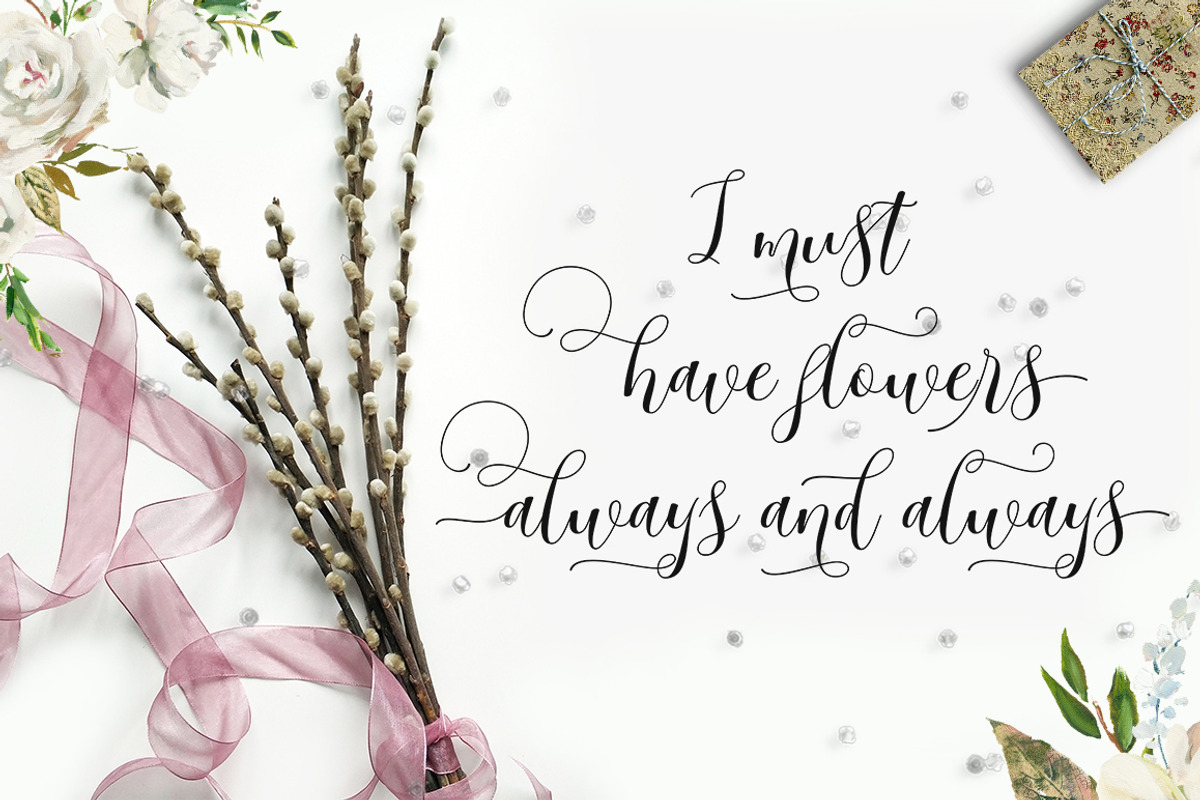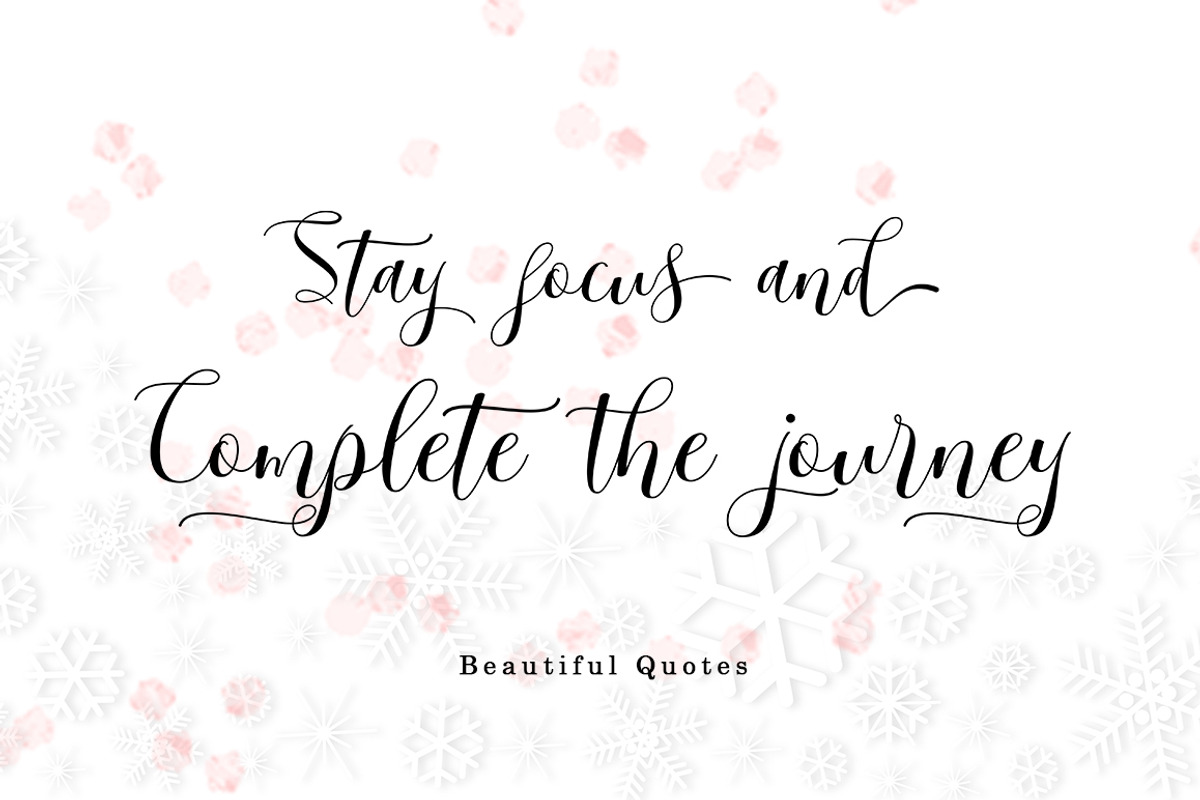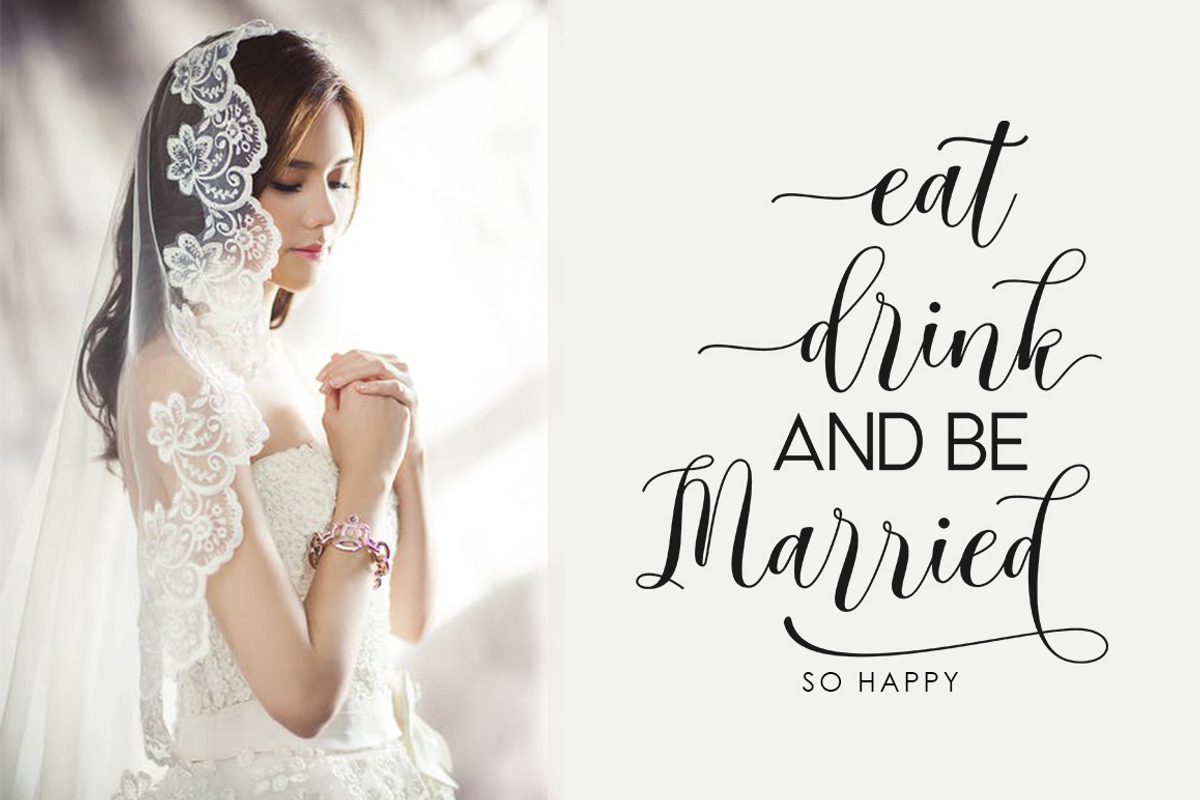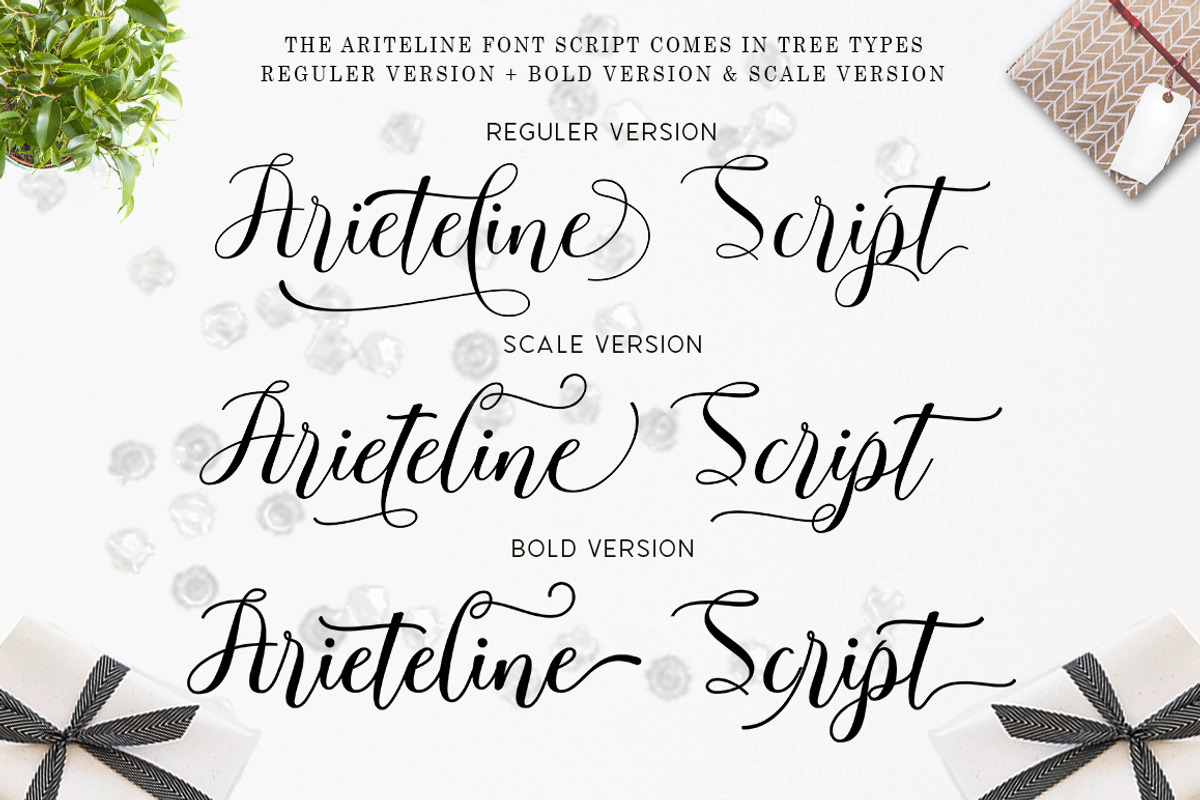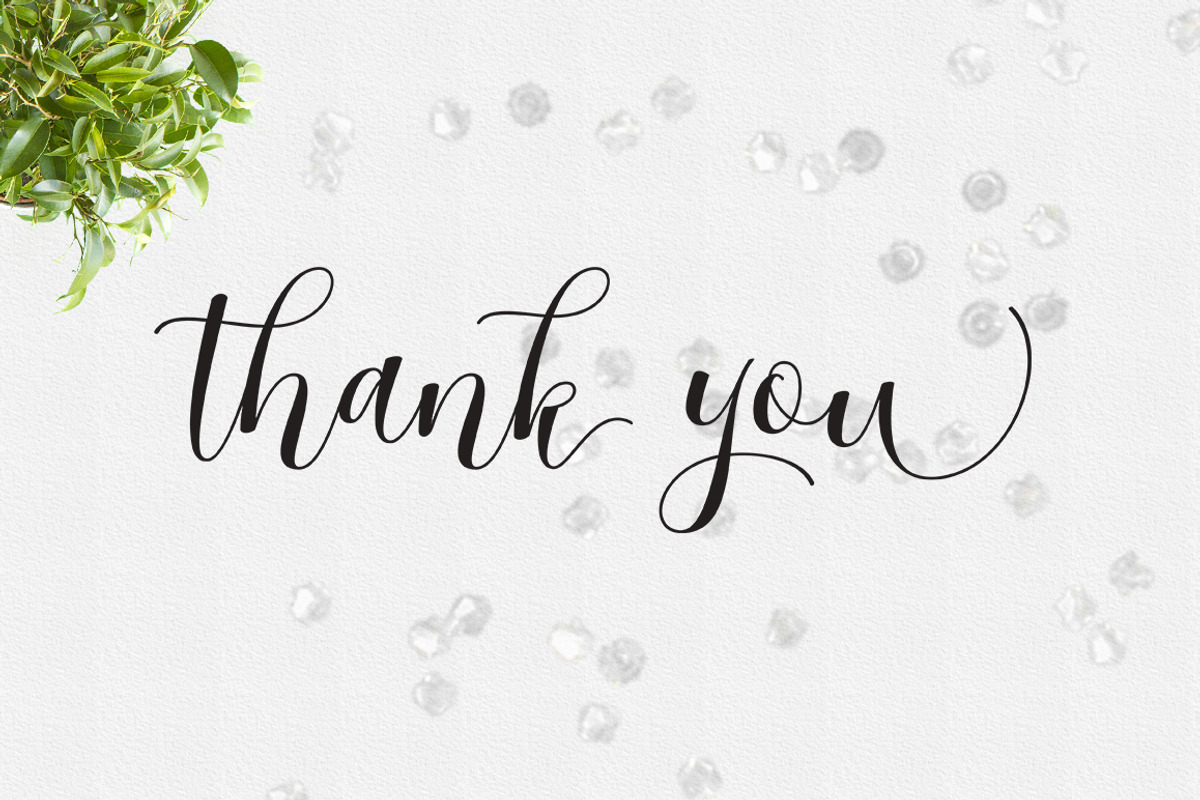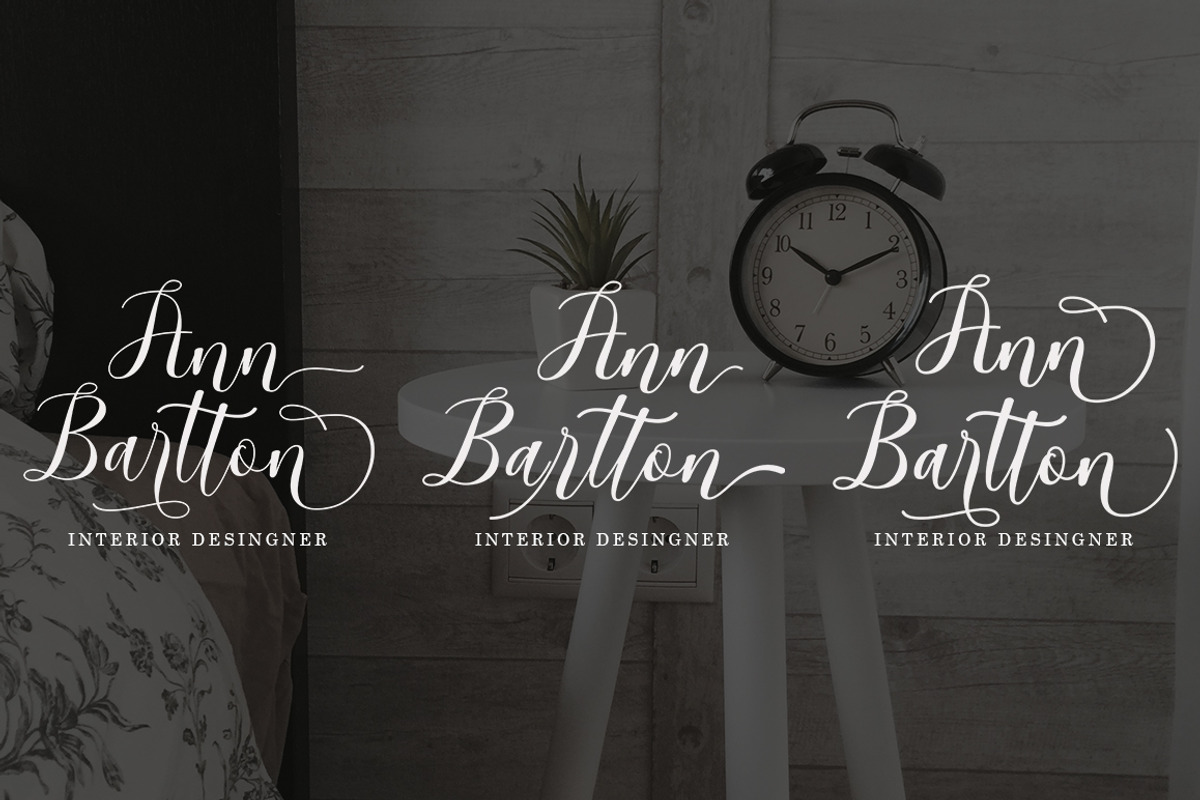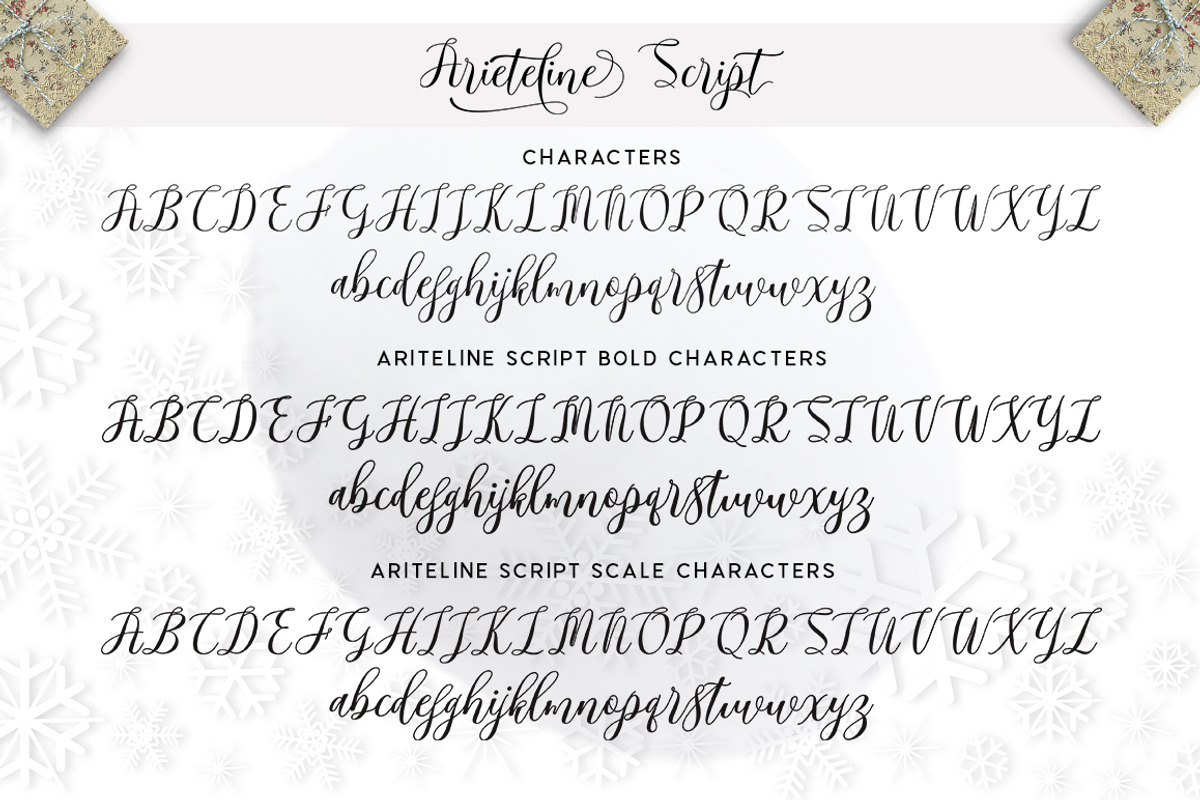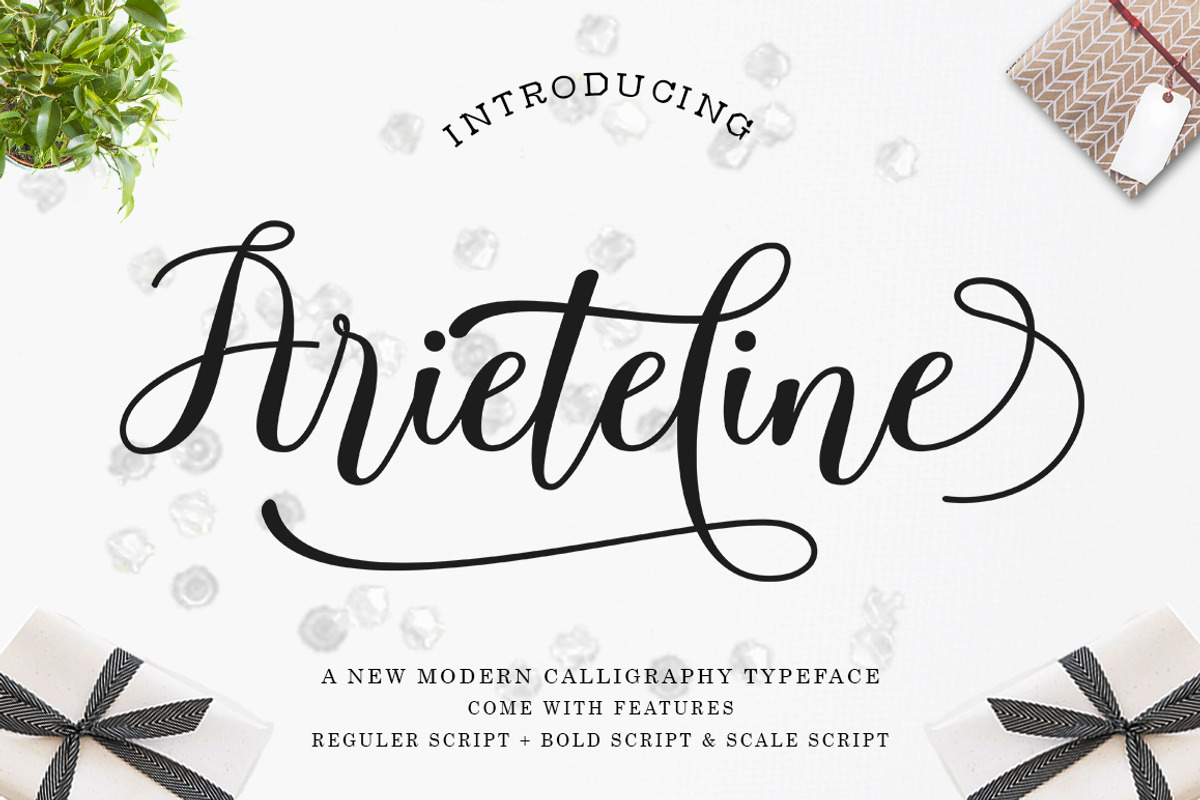
Arieteline Script
The Arieteline script is a beautiful calligraphy design, including Regular and italics. This font is enough with a sweep. Can be used for various purposes. such as logos, product packaging, wedding invitations, branding, titles, signs, labels, signatures, book covers, posters, quotes, and more.